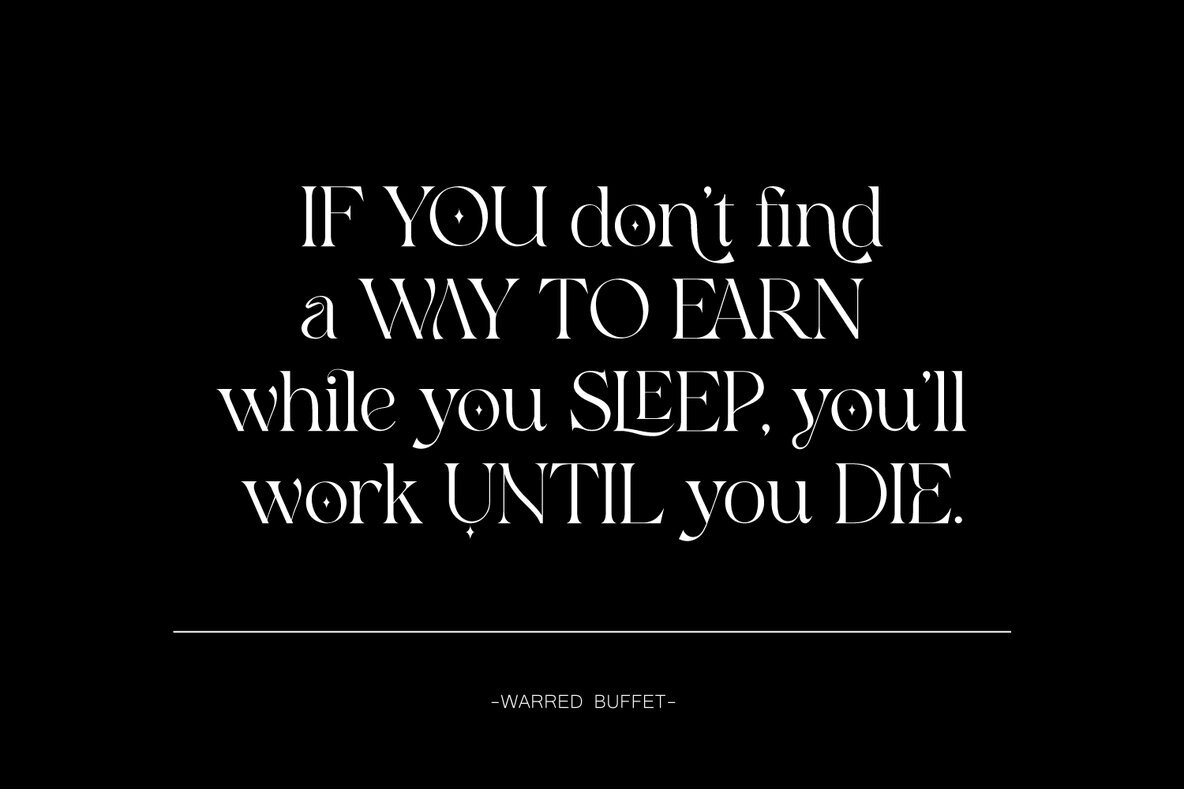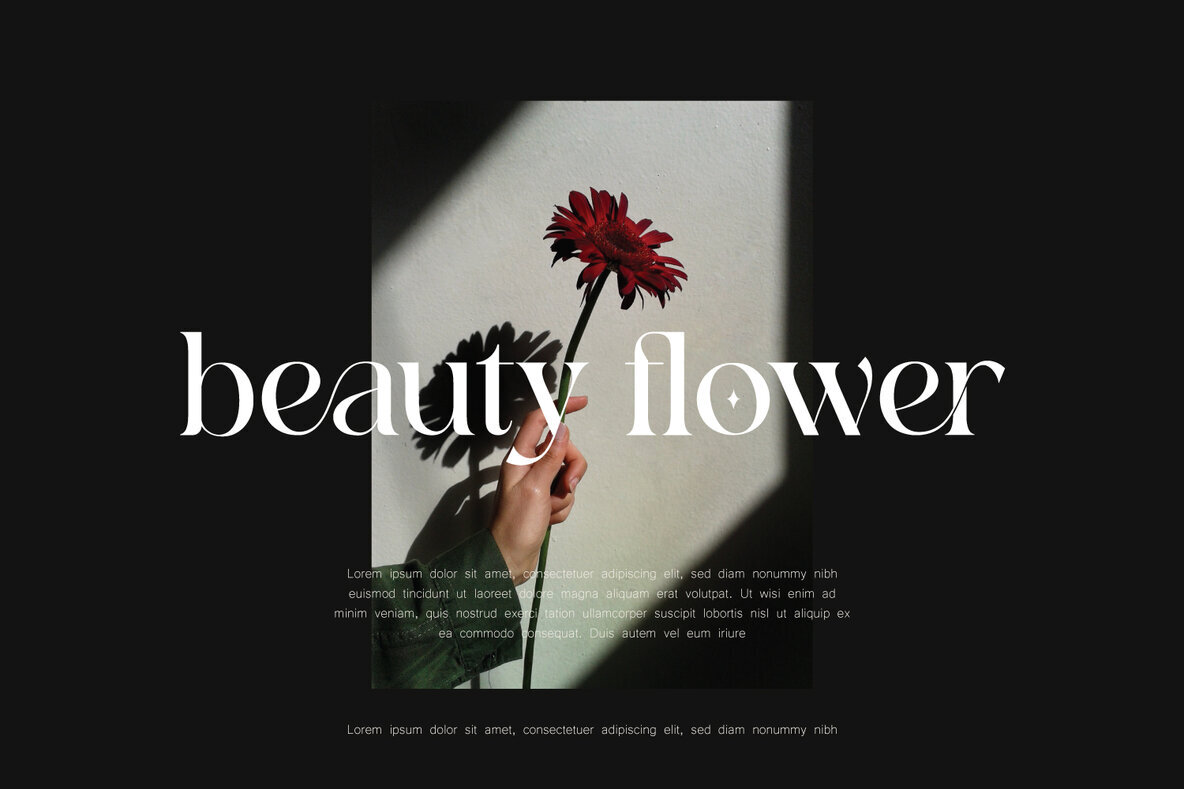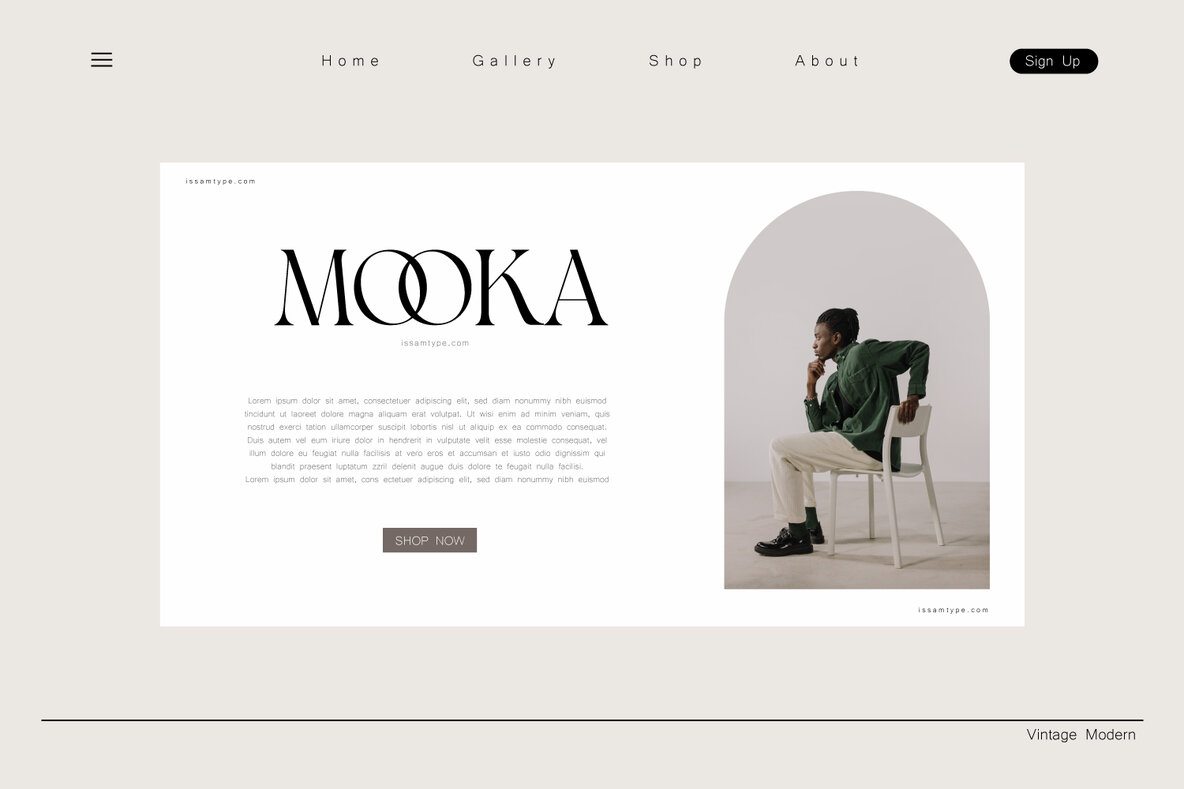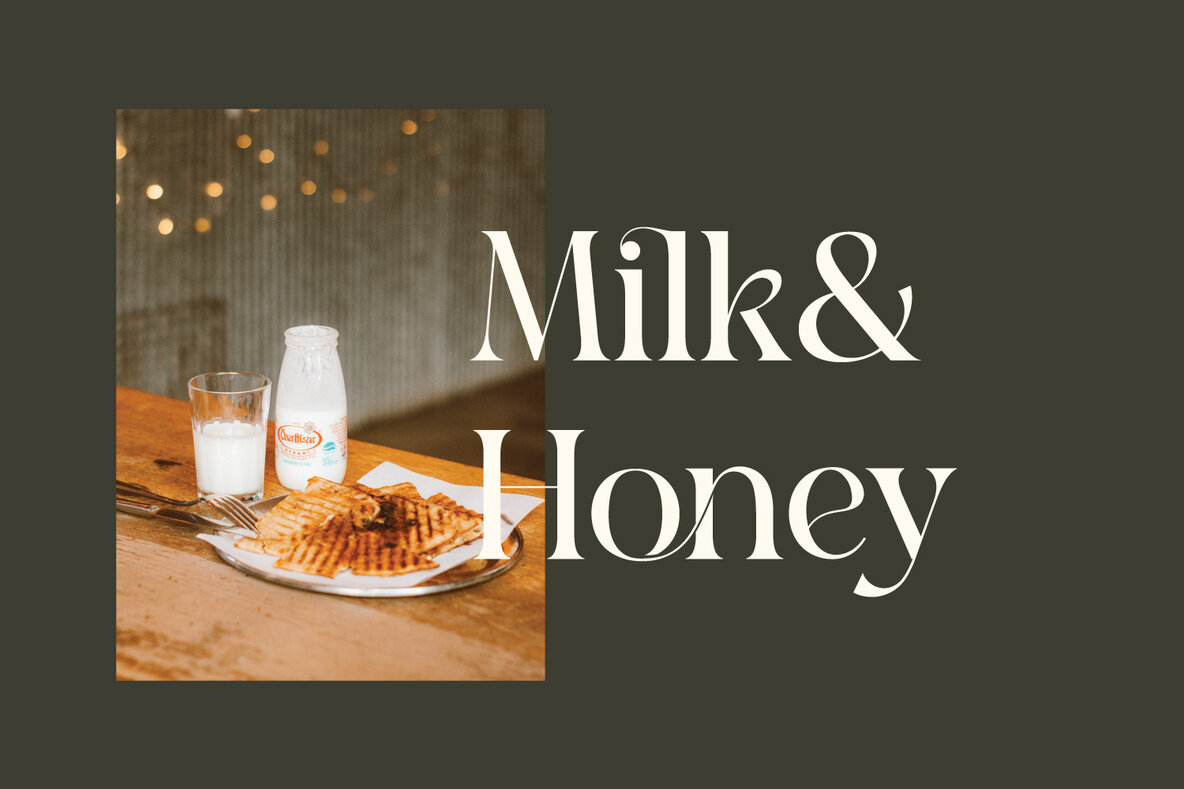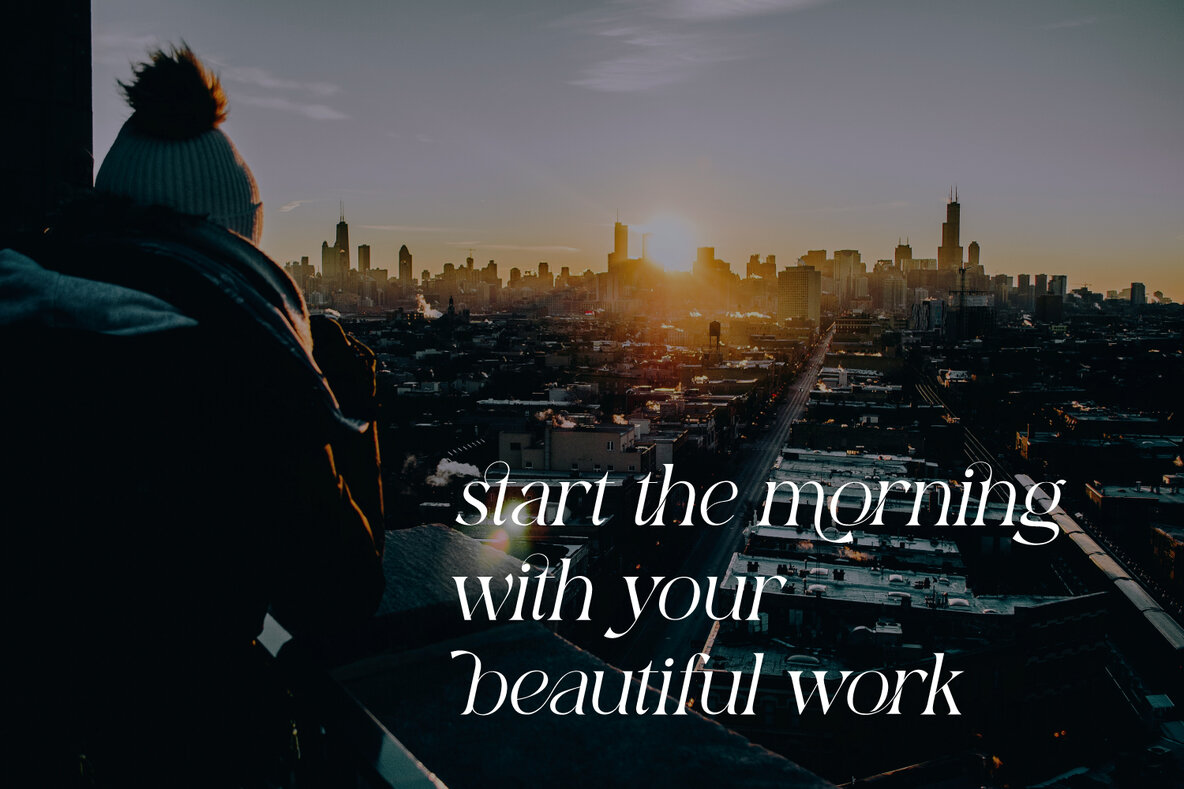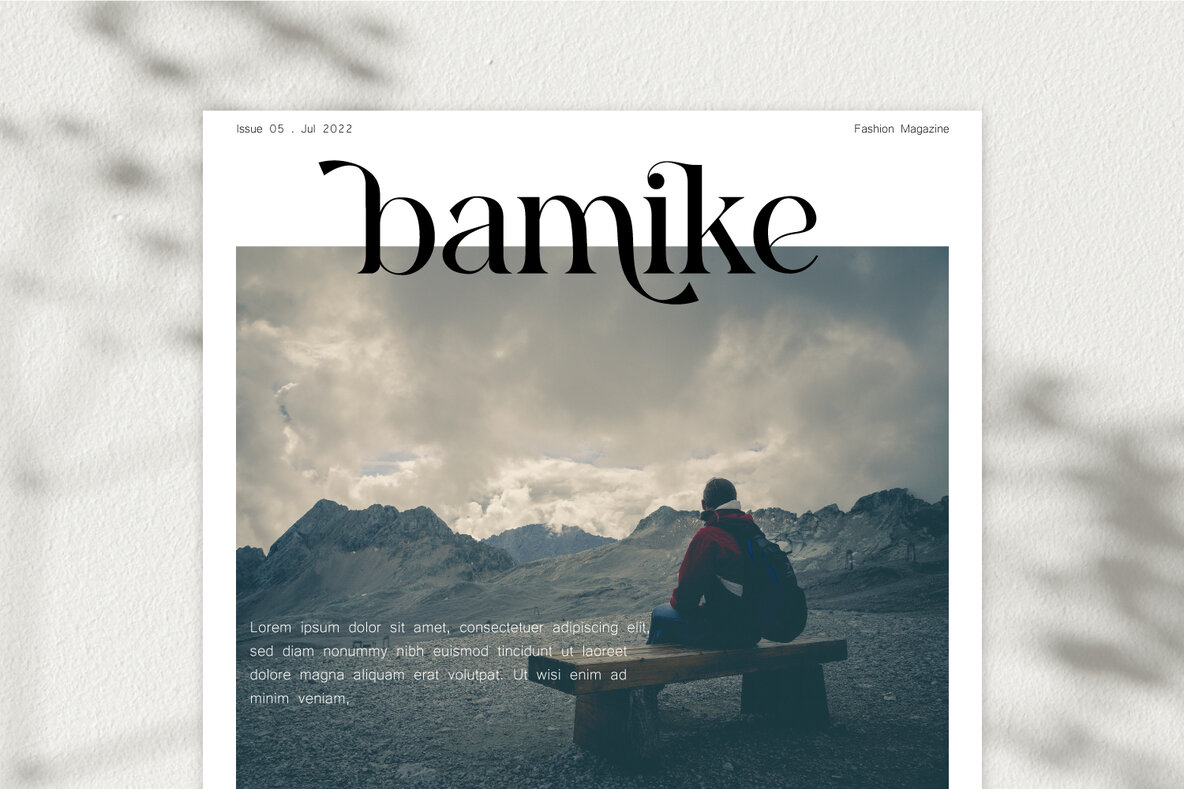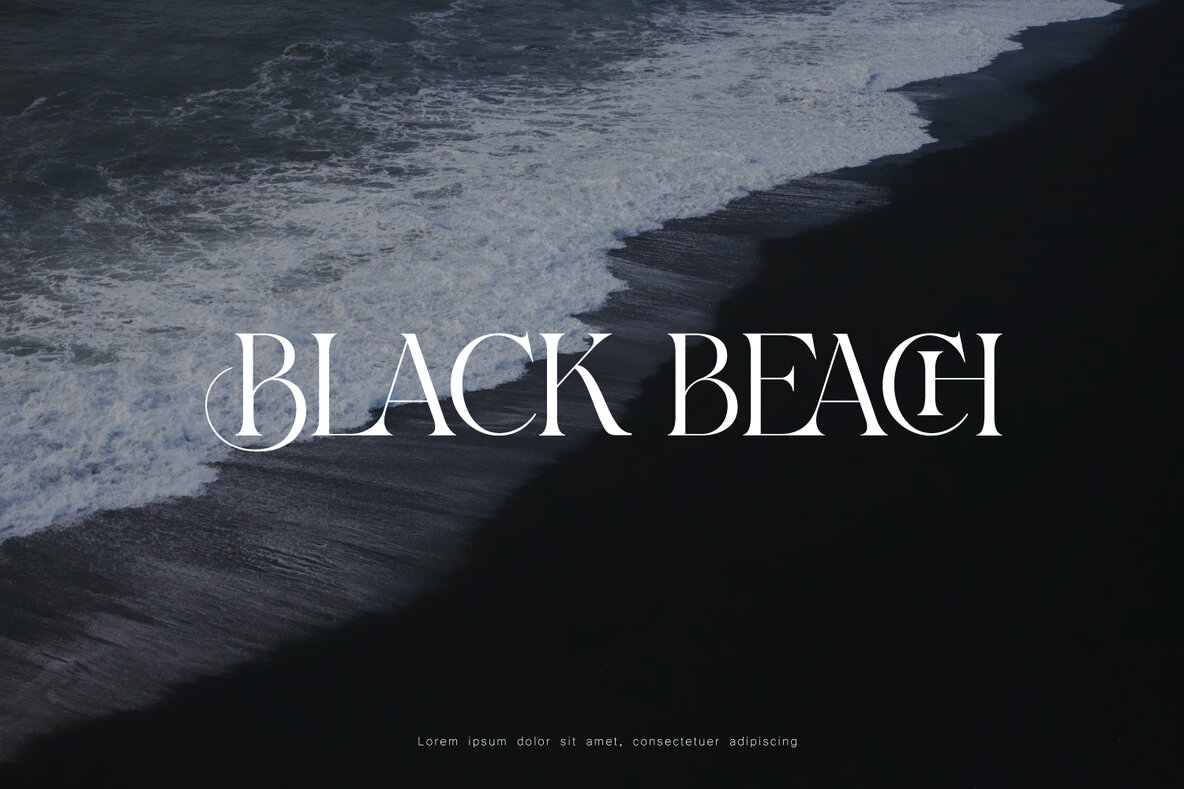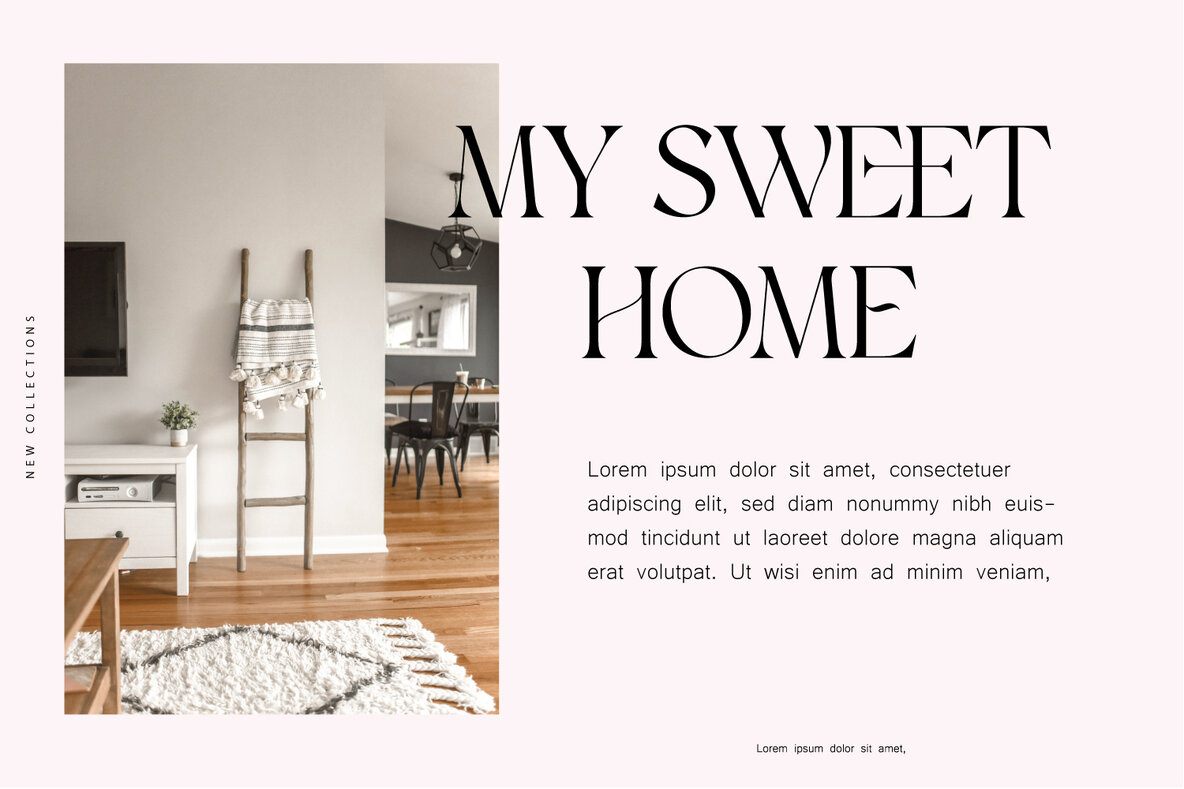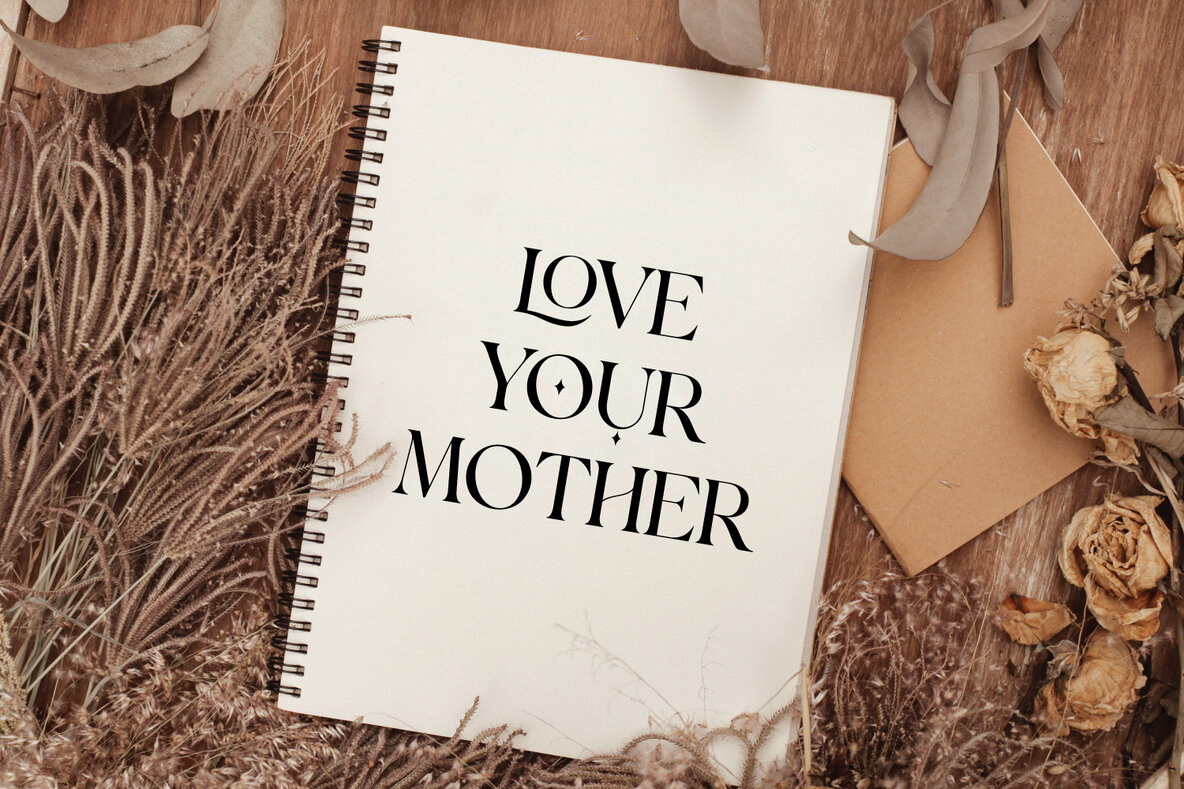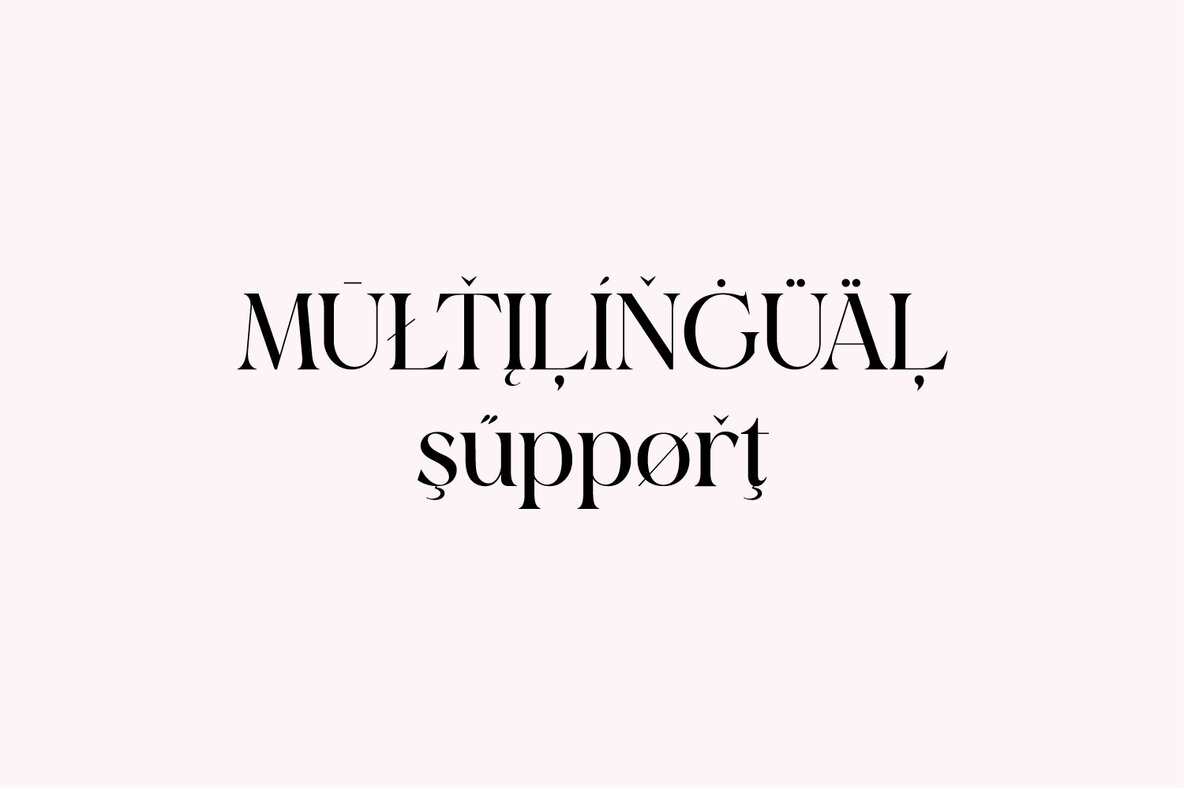
Bomiro Font
Bomiro is a modern serif typeface that exudes sophistication with its intricate ligatures. Ideal for branding projects, logos, invitations, and watermarks, Bomiro adds a unique flair to any design.Bomiro: Elegant Ligature Serif Typeface